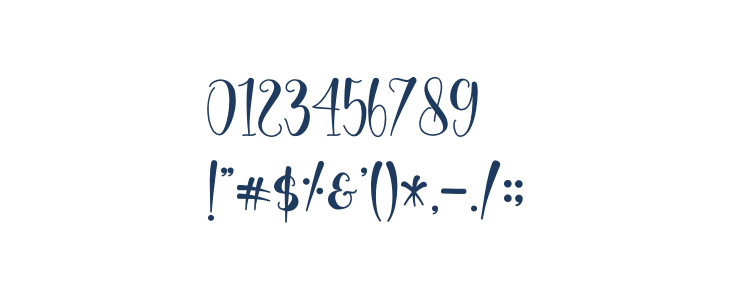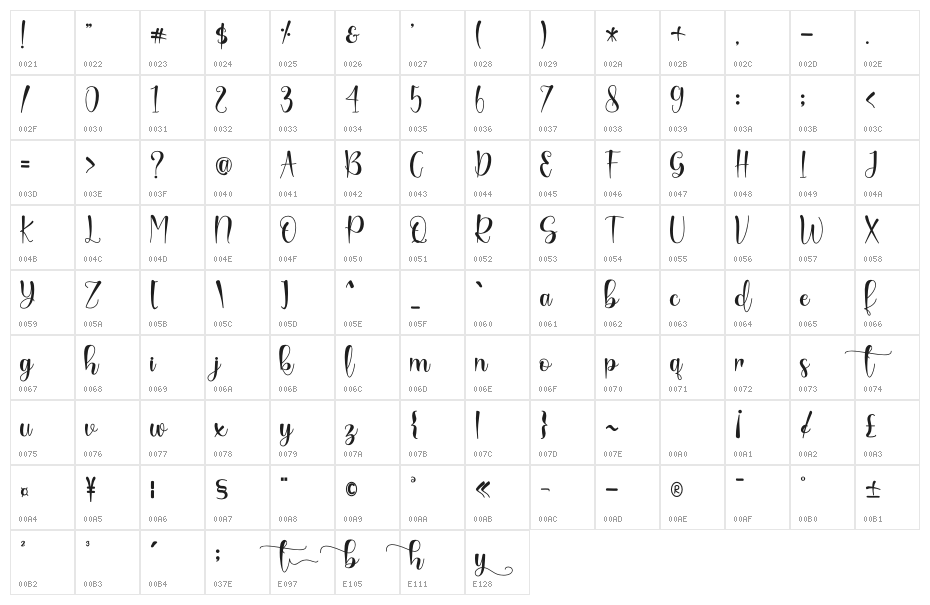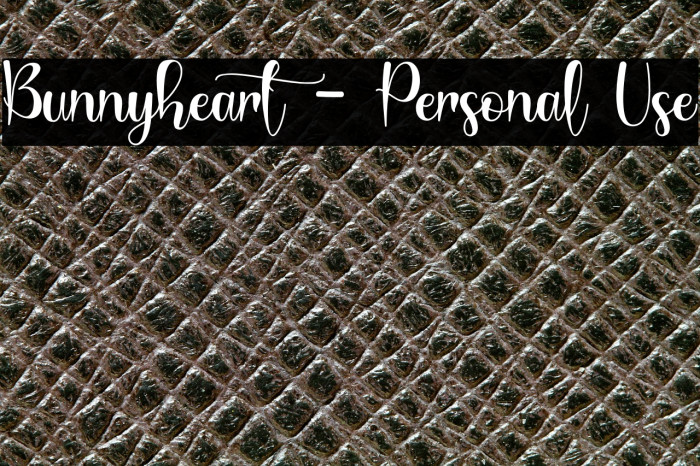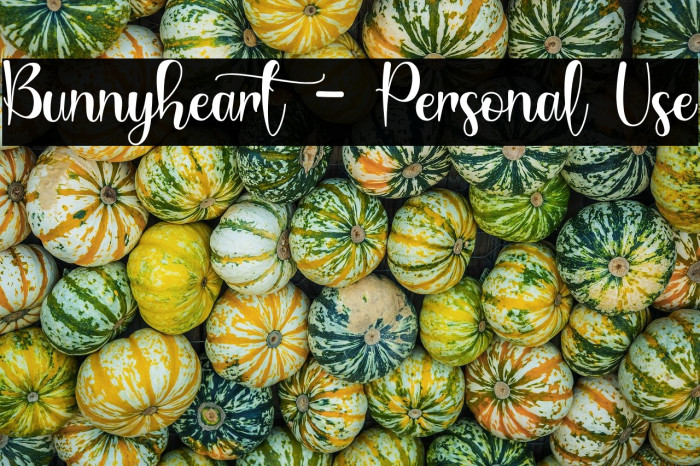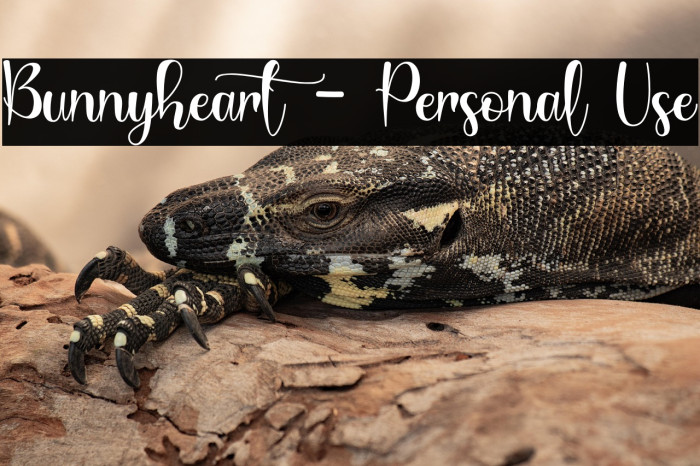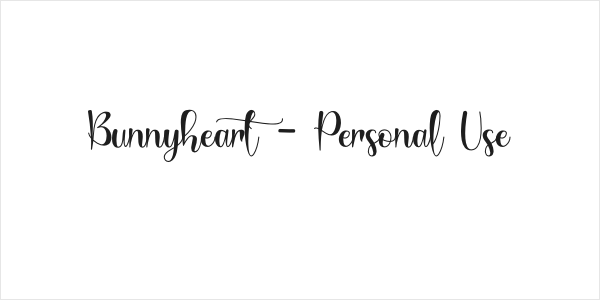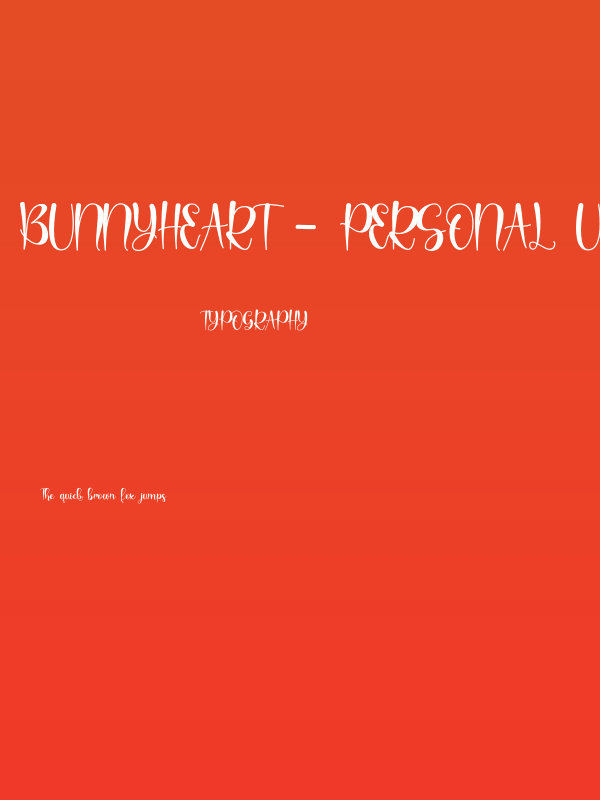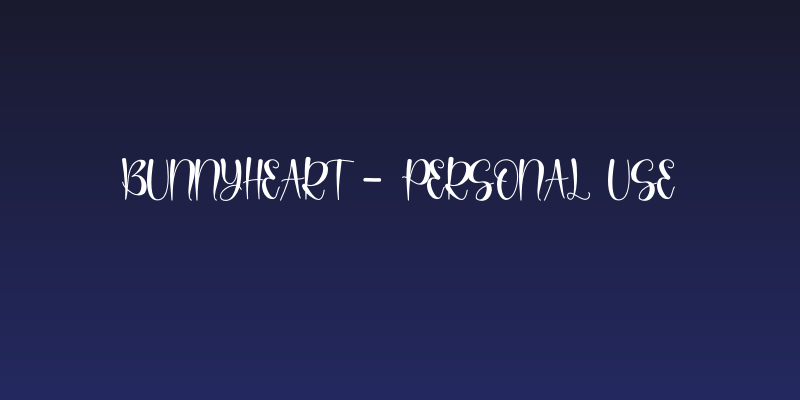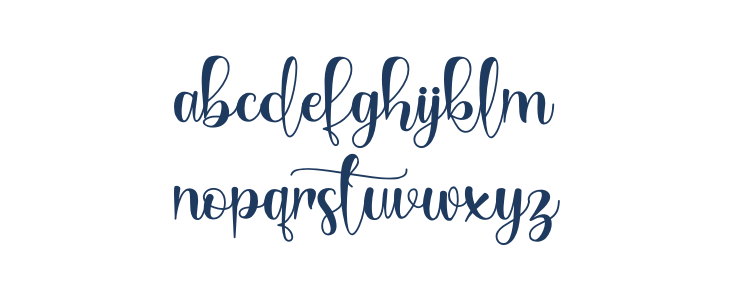
Bunnyheart - Personal Use Font
This font features a playful and whimsical script style with a handwritten appearance. The letters are characterized by their flowing, cursive forms and varying stroke widths, giving it a dynamic and lively feel. The uppercase letters are bold and expressive, while the lowercase letters maintain a consistent fluidity. The numbers and special characters are designed to match the overall aesthetic, ensuring a cohesive look. This font is ideal for projects that require a personal touch, such as invitations, greeting cards, or branding materials that aim to convey a sense of warmth and creativity.
| Proposed Projects | Ideal for invitations, greeting cards, branding, and creative projects. |